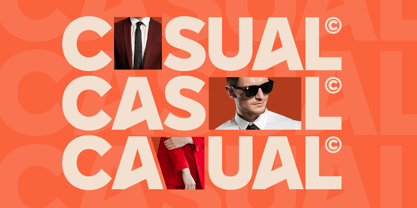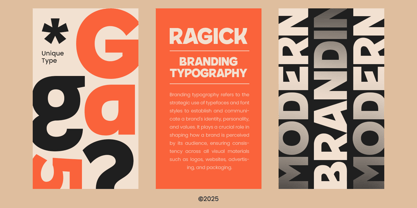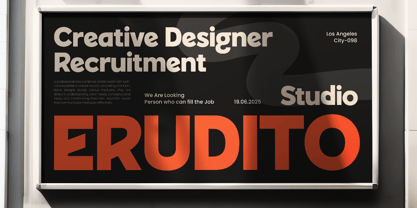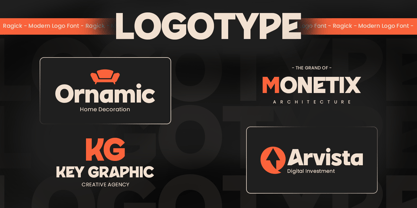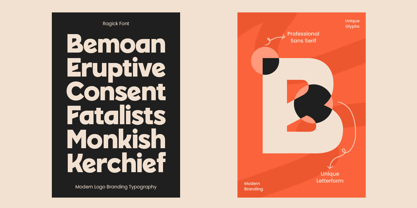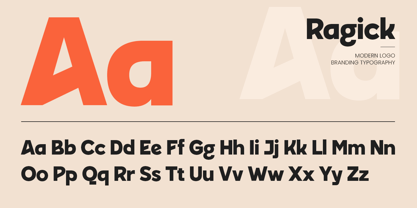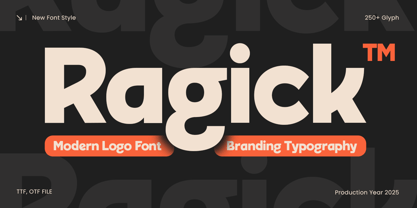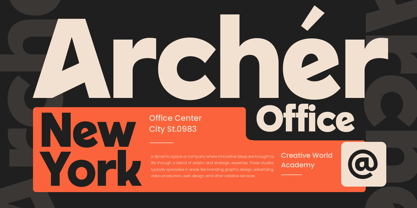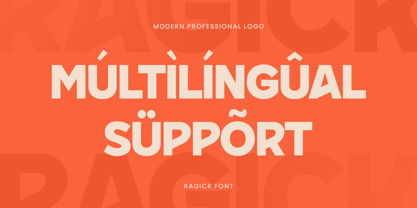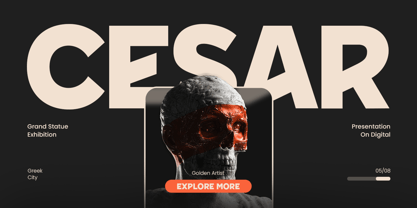
Ragick
Die Schriftfamilie Ragick wurde von Zamroni Hamzah, Kusnidah Marpuah entworfen und von Dareco Studio veröffentlicht. Ragick enthält 1 Stile. Mehr über diese Familie
RAGICK is a modern logo font built for brands that value simplicity, innovation, and timeless style. Designed with geometric precision and clean proportions, it’s ideal for creating sleek logos, modern packaging, website titles, and digital branding systems. With its minimalist appearance and professional feel, RAGICK delivers clarity and impact across every medium — from printed stationery to mobile interfaces. The refined details and smooth shapes give it a futuristic yet approachable tone, making it suitable for technology, , lifestyle, and creative industries. Perfect for designers seeking a versatile font for visual identities, RAGICK balances elegance with strength, ensuring your brand stands out with sophistication and confidence. Font Features Clean and modern sans serif design for logo creation Perfect for branding, packaging, and digital media Balanced geometric proportions for sleek compositions Ideal for technology, and creative branding Uppercase, lowercase, numerals, and punctuation included OpenType features for advanced typography control Fully compatible with Adobe Illustrator, Photoshop, InDesign, and Canva Multilingual support for 60+ languages including Afrikaans, Dutch, English, French, German, Italian, Portuguese, Spanish, and more Redefine modern branding with RAGICK – the ultimate logo font for clean, creative, and professional visual identity. ✨
Ragick